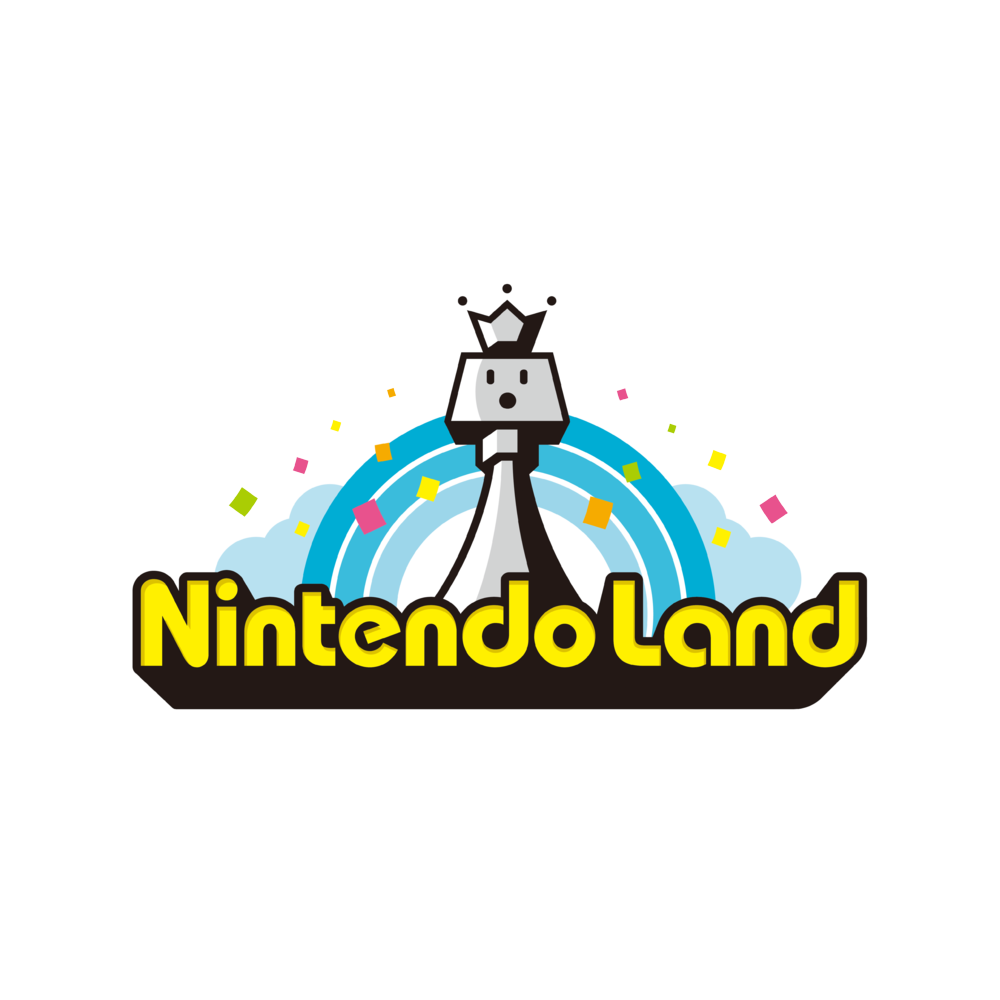
Nintendo Land Font
Fonts in UseNintendo Land is a theme park-style video game developed by Nintendo for the Wii U console, featuring a variety of mini-games based on popular Nintendo franchises like Mario, Zelda, and Donkey Kong.
It is likely that the decorative geometric sans font used for the game title on the box art is ITC Bauhaus Bold, a typeface created by Edward Benguiat and Victor Caruso in 1975. Further information on this font is available here.